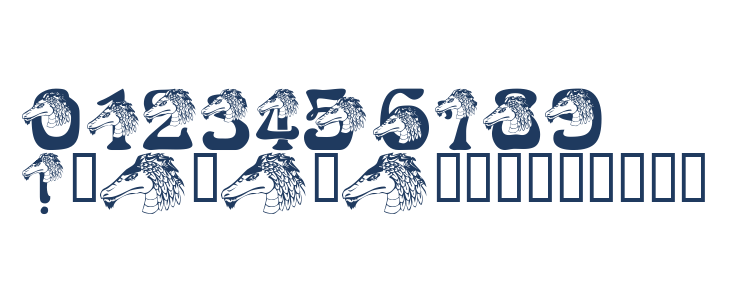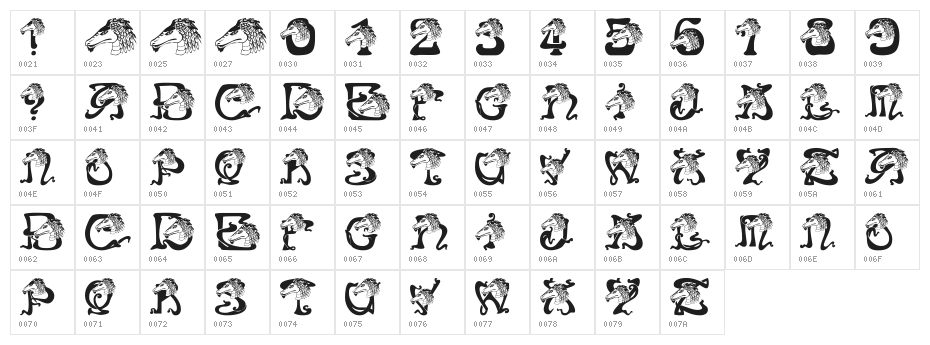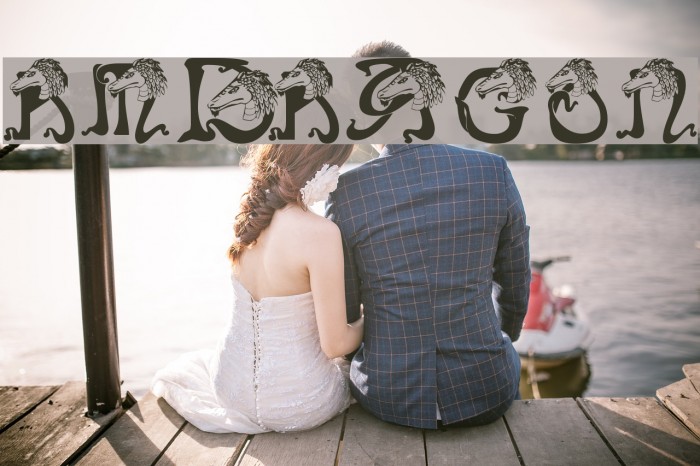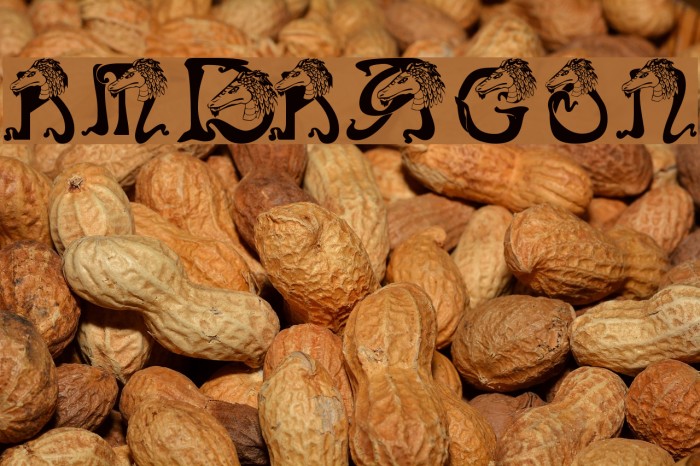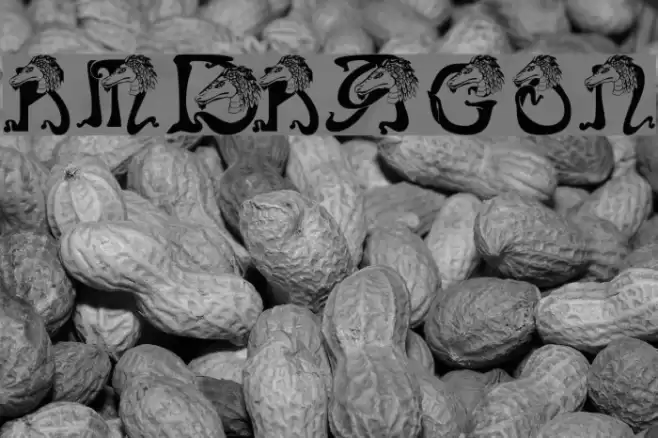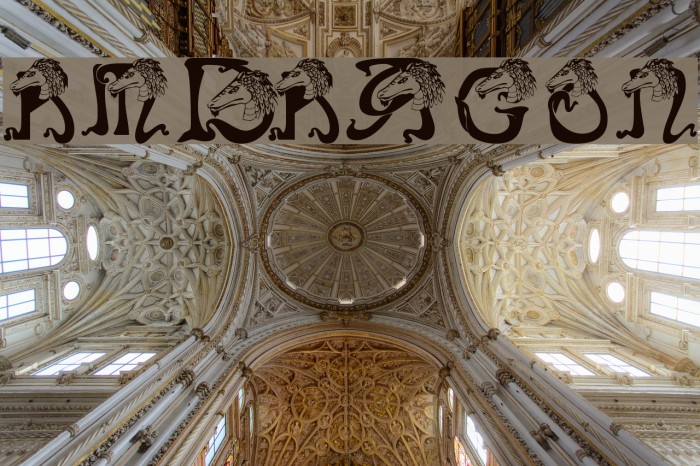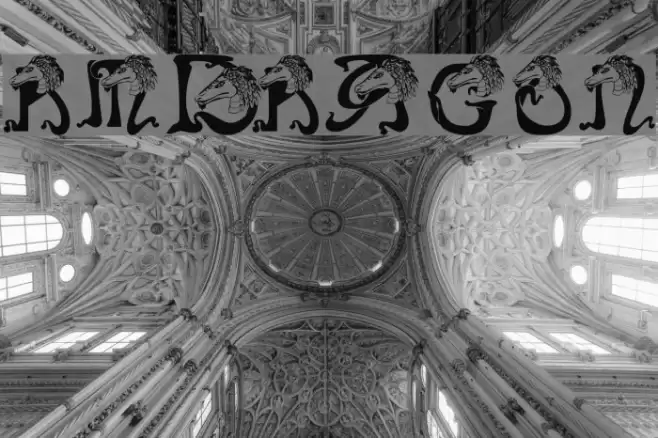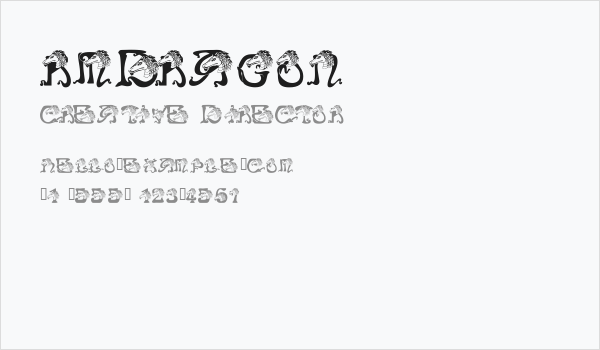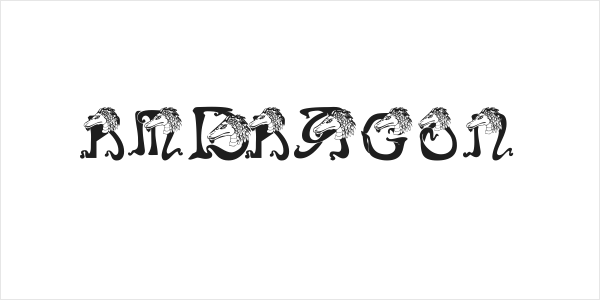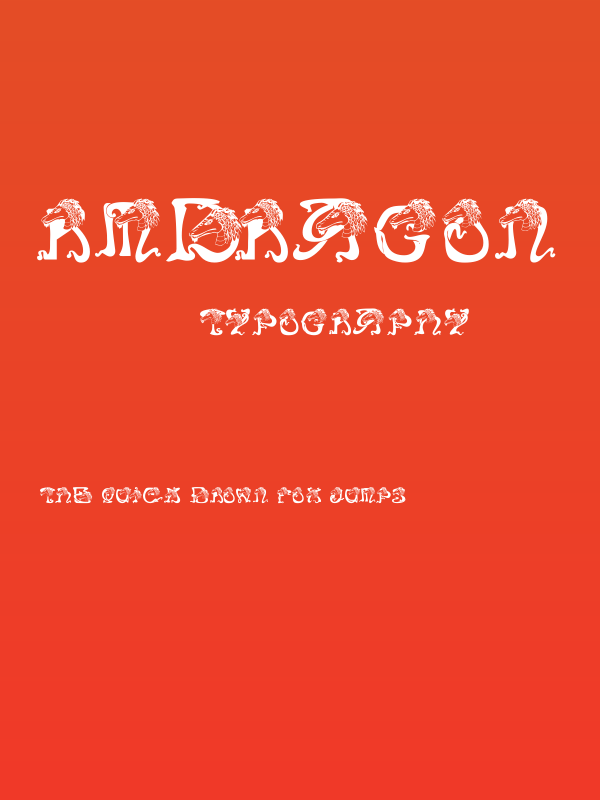
RMDragon Font
RMDragon Description
This font features a unique and artistic design where each character is intricately integrated with dragon motifs. The letters and numbers are adorned with detailed dragon heads and tails, creating a striking and mythical appearance. The style is highly decorative, with each character having a distinct and elaborate form that captures the essence of fantasy and mythology. The font's design is bold and eye-catching, making it suitable for projects that require a dramatic and thematic visual impact. The intricate details and creative integration of dragon elements make this font a standout choice for fantasy-themed designs.
| Proposed Projects | Ideal for fantasy-themed projects, book covers, game titles, and decorative posters. |